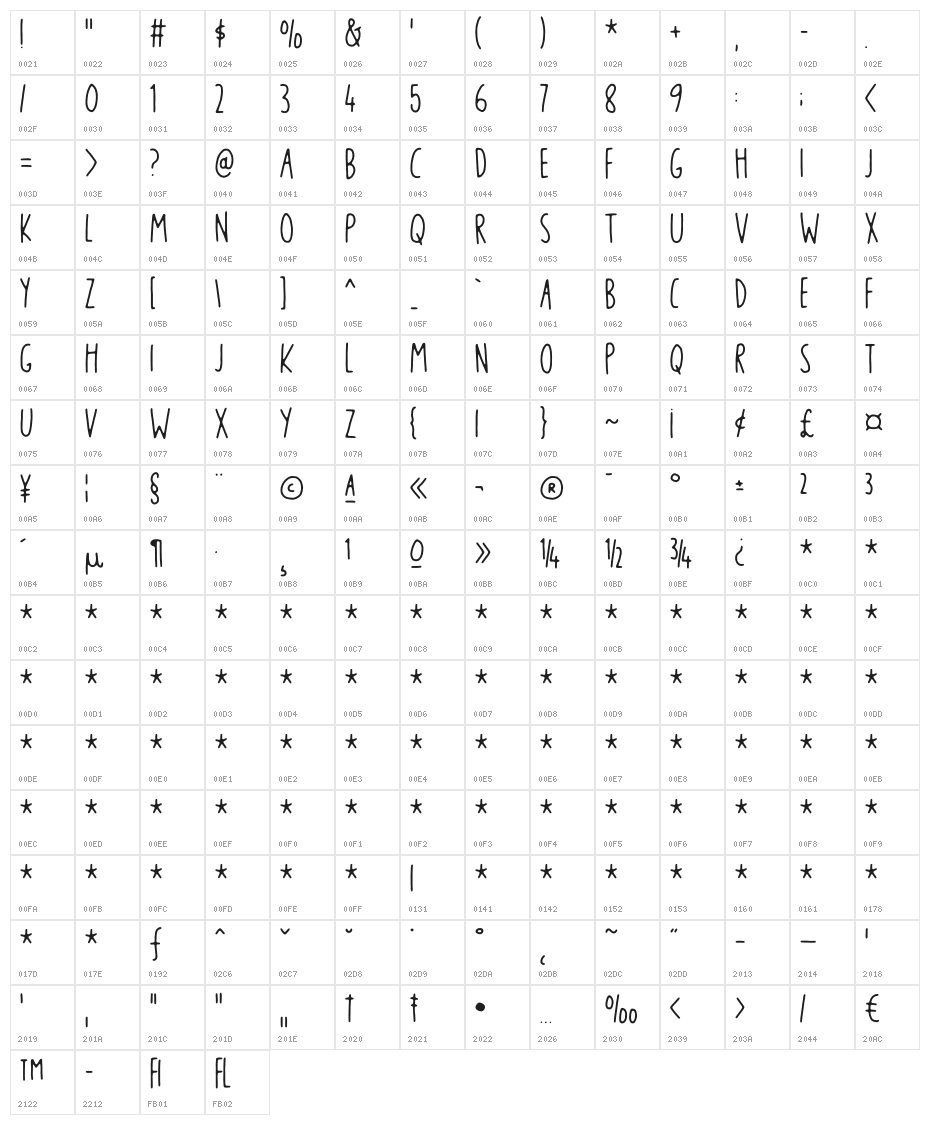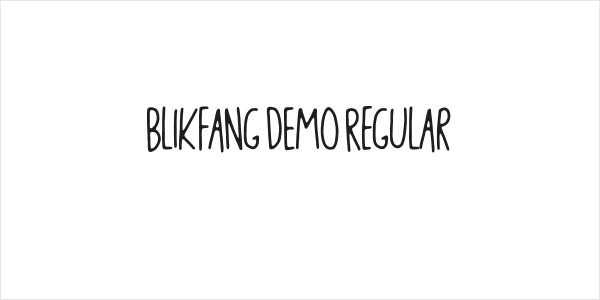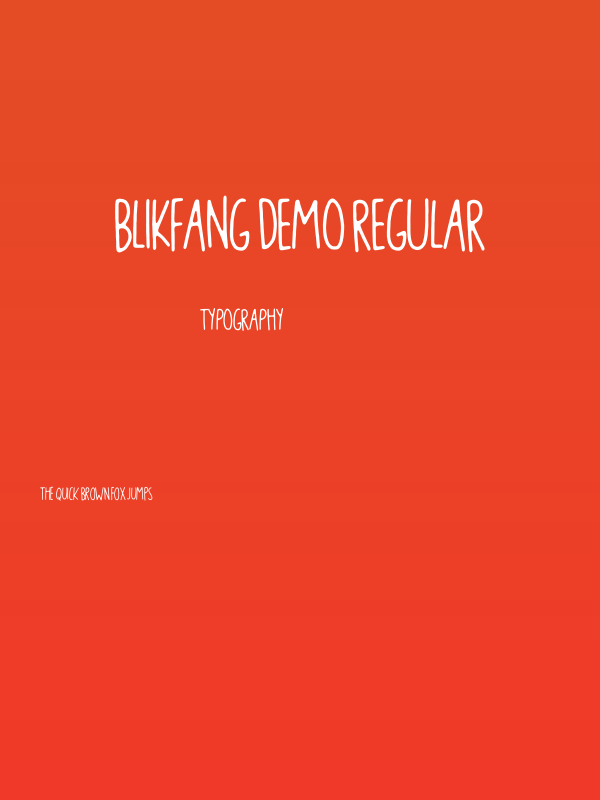
Blikfang DEMO Regular Font
Blikfang DEMO Regular Description
This font features a playful and informal handwritten style, characterized by its tall, narrow letters and slightly irregular strokes. The uppercase and lowercase letters maintain a consistent height, contributing to a cohesive look. The numbers are distinct and easy to read, while the special characters add a quirky touch to the overall design. The strokes are smooth and slightly rounded, giving the font a friendly and approachable feel. This style is ideal for projects that require a personal, casual touch, such as invitations, greeting cards, or creative branding.
Overall StyleCasual
Use CaseHeadlines, Logos, Informal Text
Proposed ProjectsIdeal for invitations, greeting cards, creative branding, and informal communication.